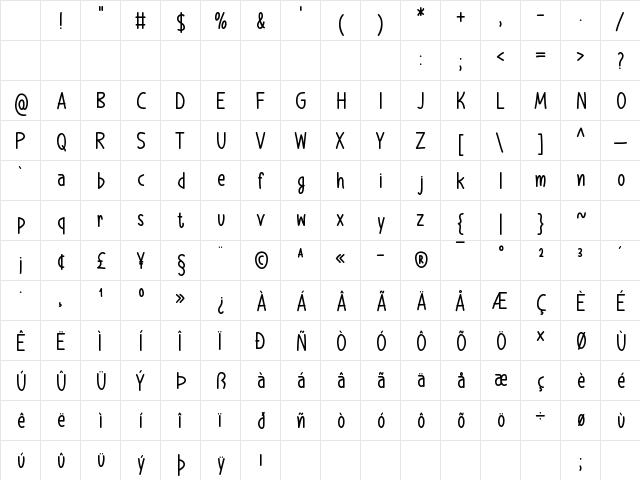
Complete Brainchild Regular glyph index. Displaying only characters natively supported by Brainchild Regular font.
Brainchild has an approachable, lighthearted character - its loose, expressive forms are well-suited to children's content, casual branding, and fun-first design.
Font Pairing: Pairs well with a rounded or humanist sans for body copy, maintaining the friendly tone without relying on Brainchild to carry extended reading.
Pro Tip: Use Brainchild at larger display sizes where its expressive character can land. Pair with a clean, simple sans for body copy to maintain readability.